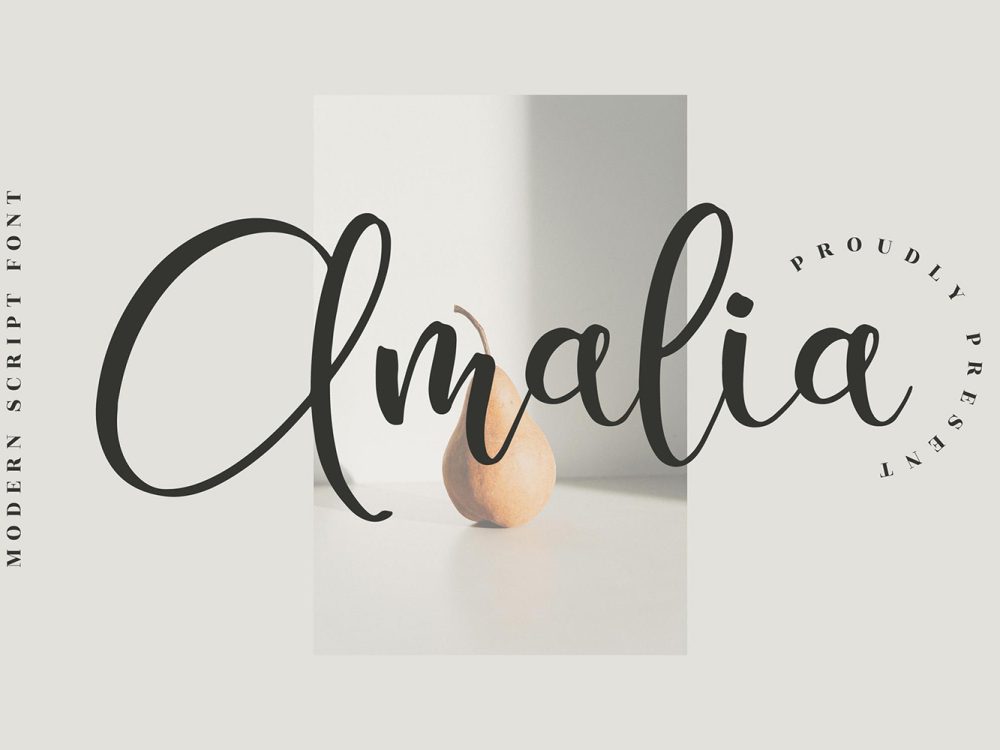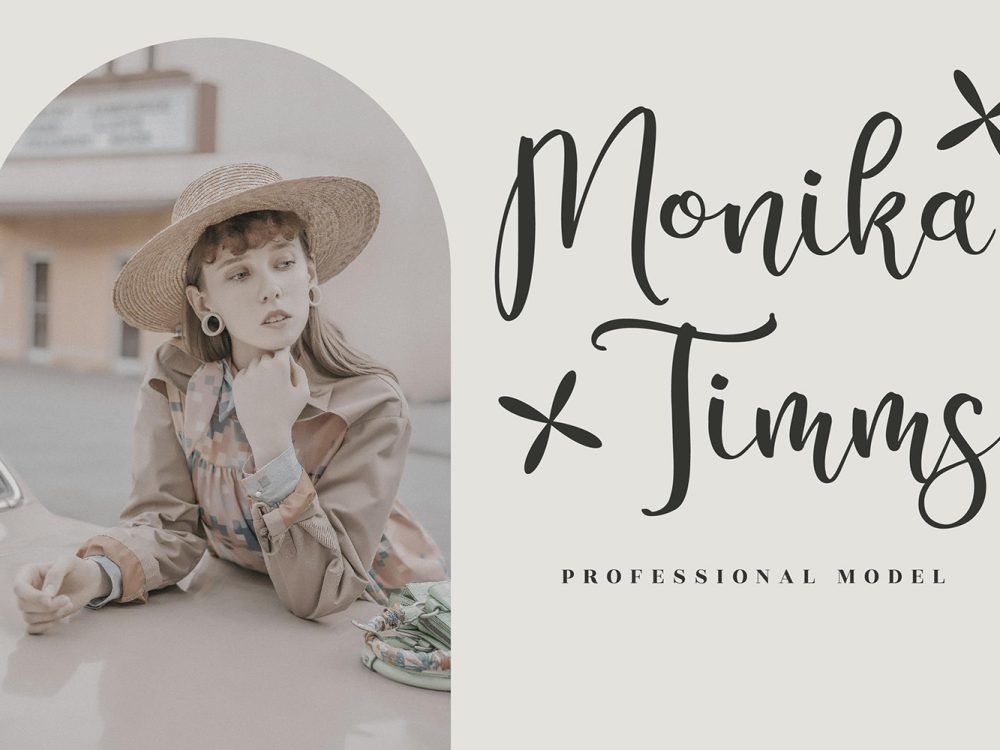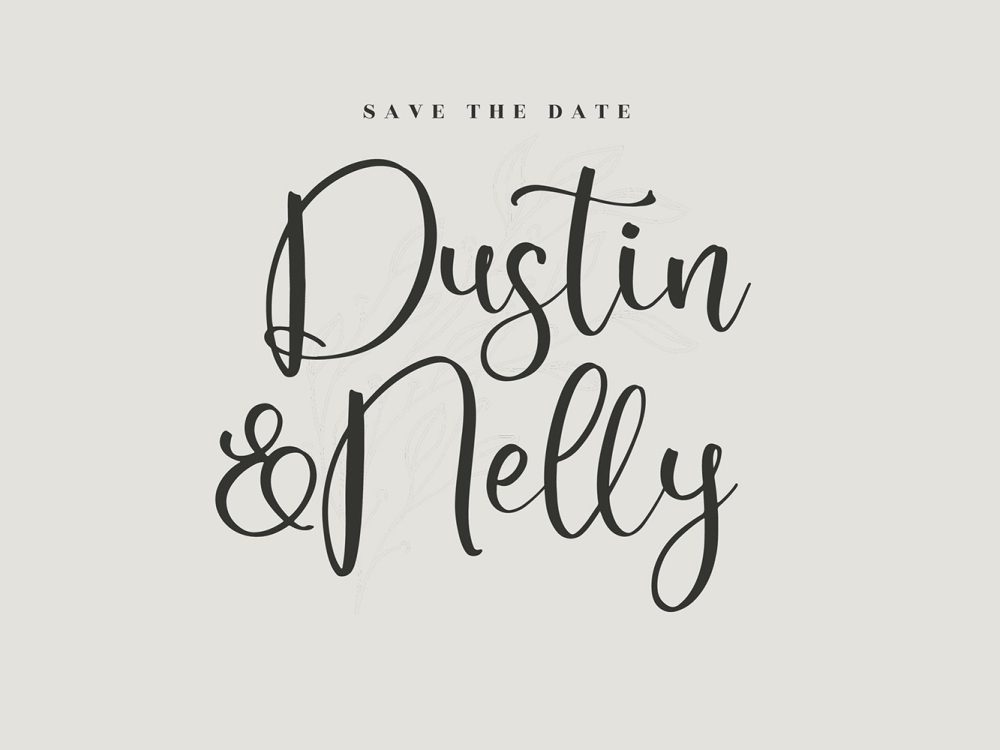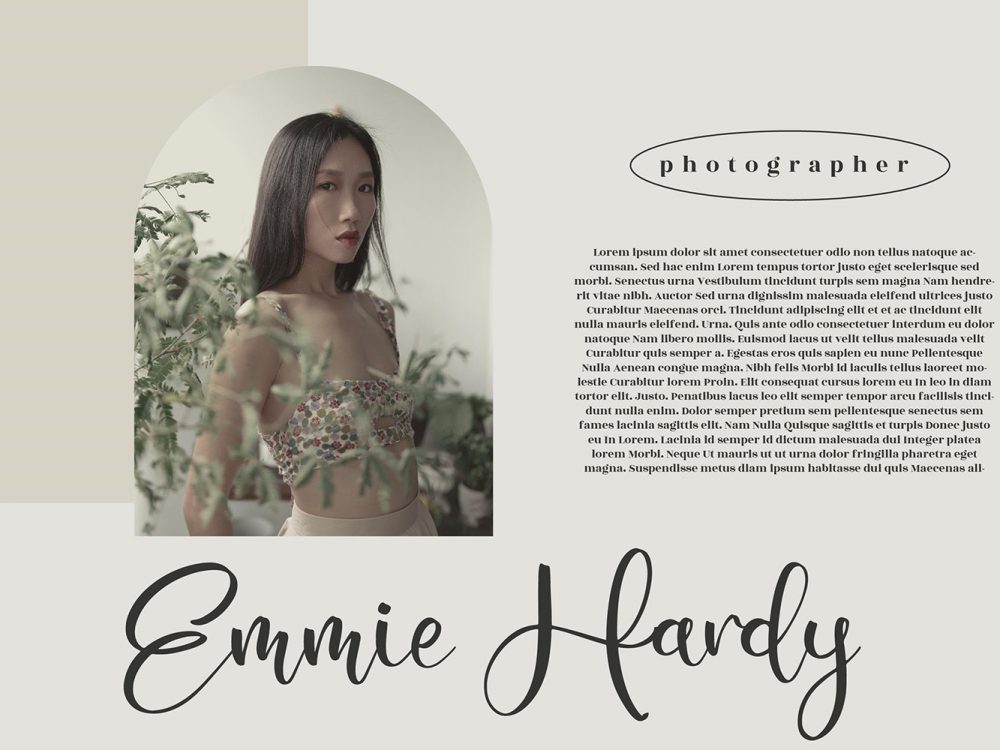
Amalia Free Font
Amalia Free Font, an elegant and refined calligraphy typeface, features characters that gracefully dance along the baseline. Infuse a touch of opulence into your design endeavors with Amalia, enhancing the allure of any project you aspire to create. If you like it don’t forget to check out the full version.